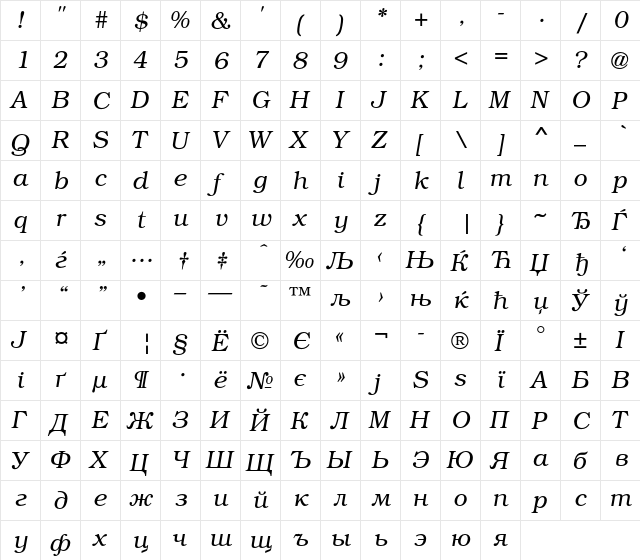
BookmanC Regular Font Preview
BookmanC Regular
BookmanC Regular Font Details
Design Context for BookmanC Typeface
BookmanC offers clean, dependable letterforms without strong stylistic allegiance, making it a practical choice for designers who need flexibility.
Pro Tip: Use BookmanC in both headline and body roles to test its range before committing to a single application.